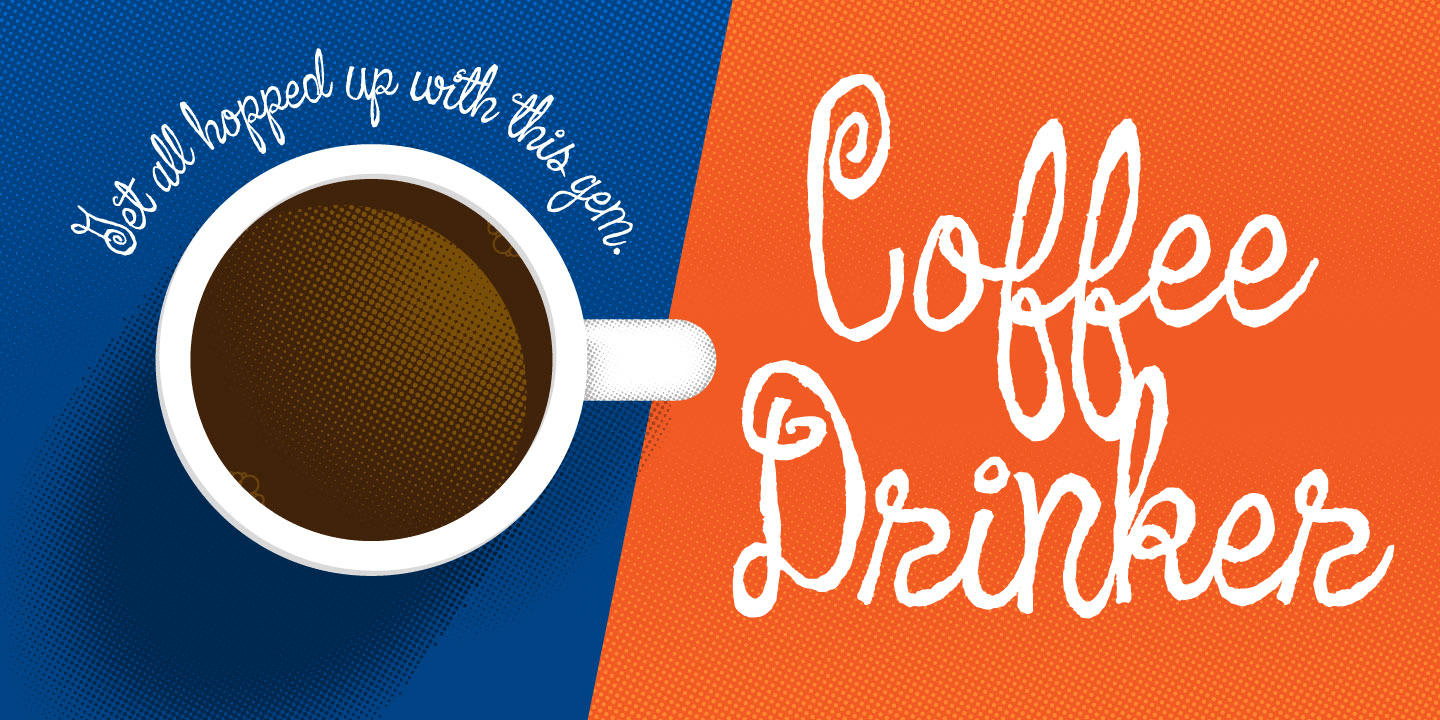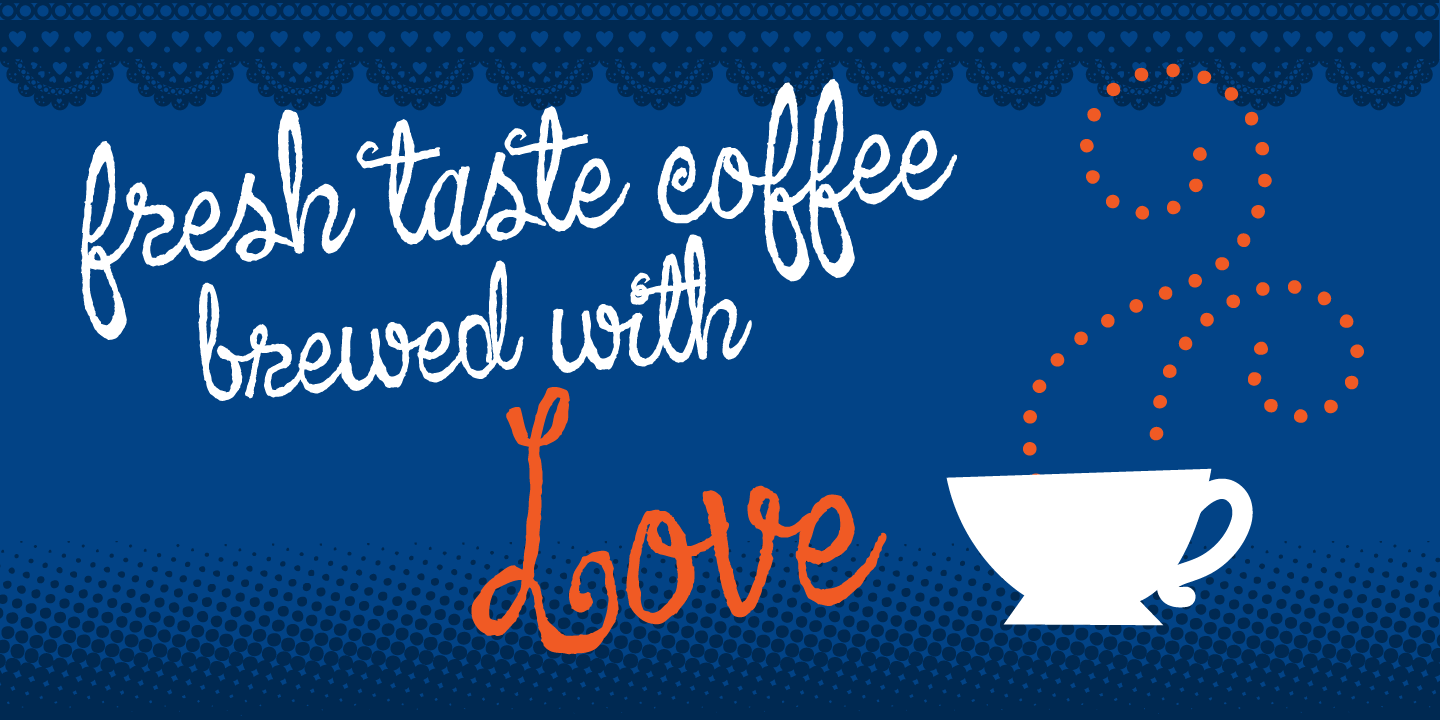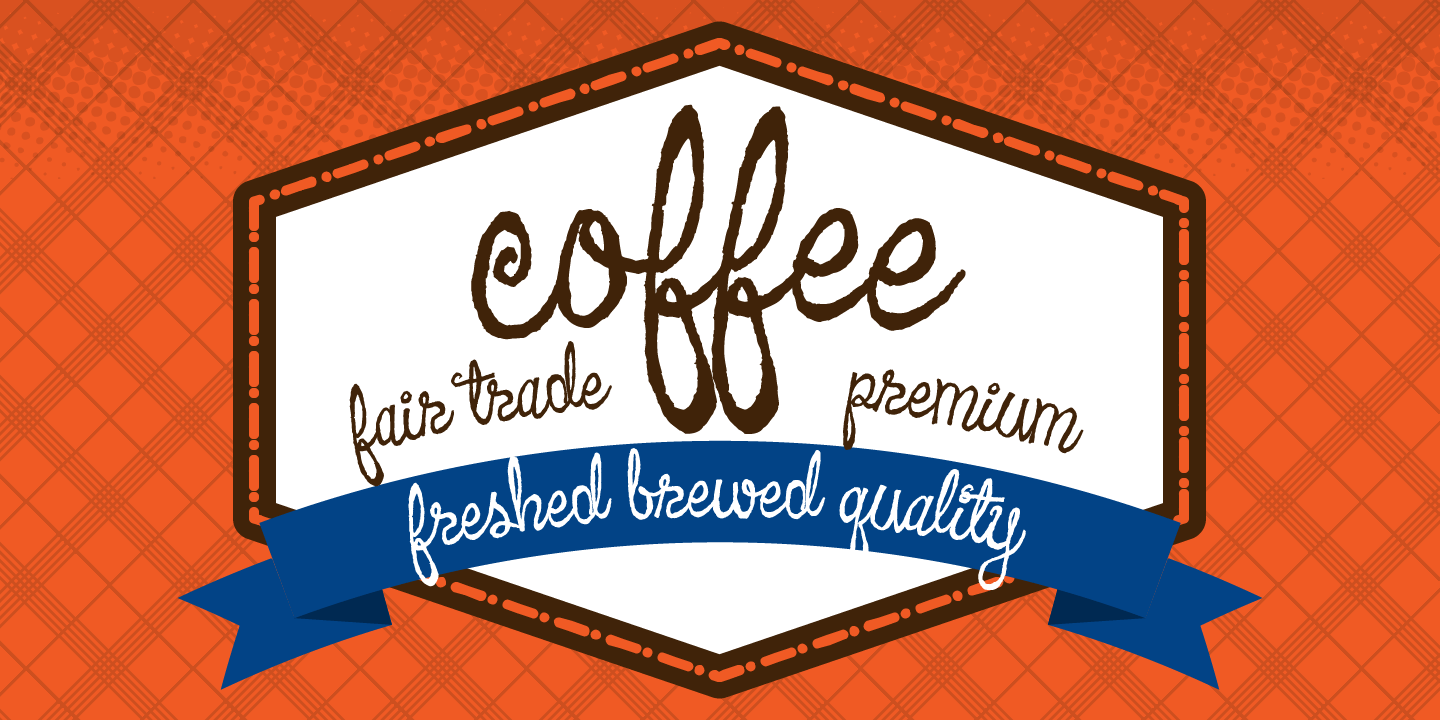
Coffee Drinker
"Gimme another cup!" "One more Joe for the road!" "Add another shot!" These are the cries of the Coffee Drinker at the height of creativity. Although a bit jittery, every firing synapse comes through in this, our tribute to latte lovers, cappuccino cravers and drip dribblers everywhere! Try Coffee Drinker and escape the same old grind!